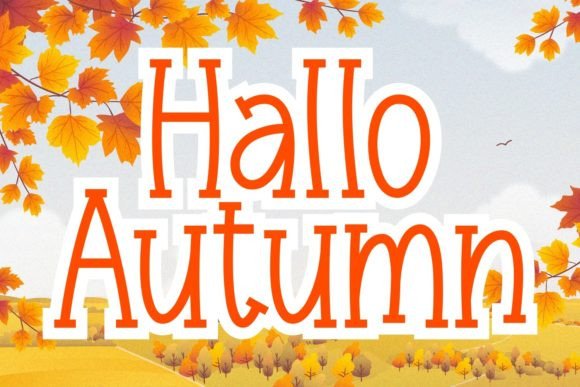
Unleash the Enchantment of Hallo Autumn: A Serif Font That Captures Hearts
In a world where visual aesthetics reign supreme, let your designs bloom with the allure of Hallo Autumn, a captivating serif font that weaves a tapestry of elegance and charm. Step into a realm of visual artistry as Hallo Autumn transforms your creations with its graceful curves and playful spirit.
Crafted by the visionary Keithzo (7NTypes), Hallo Autumn is a font symphony that harmonizes modern vibes with timeless beauty. Its bouncy characters pirouette across your designs like nimble ballerinas, inviting your audience to immerse themselves in a world of visual delight.
Hallo Autumn's versatility is a testament to its boundless creativity. Let it be the voice of your brand, whispering tales of sophistication and allure. Whether you're crafting a captivating logo, designing enchanting invitations, or weaving whimsical social media posts, Hallo Autumn will elevate your creations to new heights of visual splendor.
Experience the Magic of Hallo Autumn:
- A Serif Symphony: Hallo Autumn's carefully crafted serifs add an air of refinement and elegance to your designs, evoking a sense of timeless beauty that transcends trends.
- Bouncy Characters: Each letter in the Hallo Autumn ensemble is infused with a playful bounce, creating a visual rhythm that dances across your designs, captivating your audience's attention.
- Modern Vibes: Hallo Autumn is a breath of fresh air, bringing a contemporary twist to the classic serif style. Its modern aesthetics ensure that your designs stay relevant and captivating in the ever-evolving digital landscape.
- Versatility Unleashed: Hallo Autumn is a chameleon among fonts, effortlessly adapting to a myriad of creative endeavors. From logos to invitations, social media posts to packaging designs, Hallo Autumn becomes an extension of your imagination, bringing your visions to life with unparalleled grace.